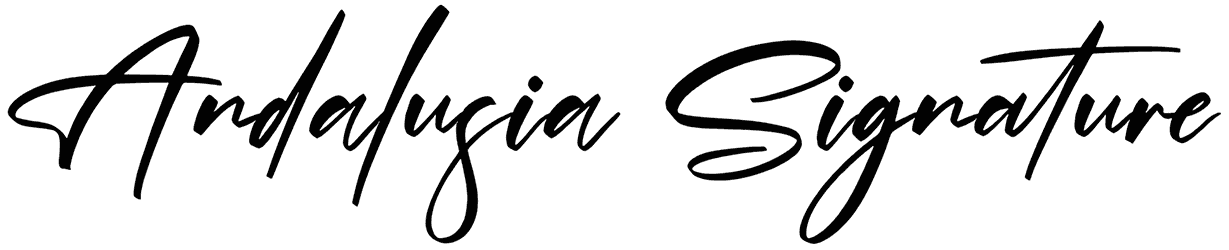
Andalusia Signature Font
The handwritten, script font Andalusia Signature is both crooked and cute. It’s a great option if you want your viewers to feel warm and fuzzy. Its two distinctive styles make it ideal for usage in handwriting, logo design, poster making, and other similar projects.